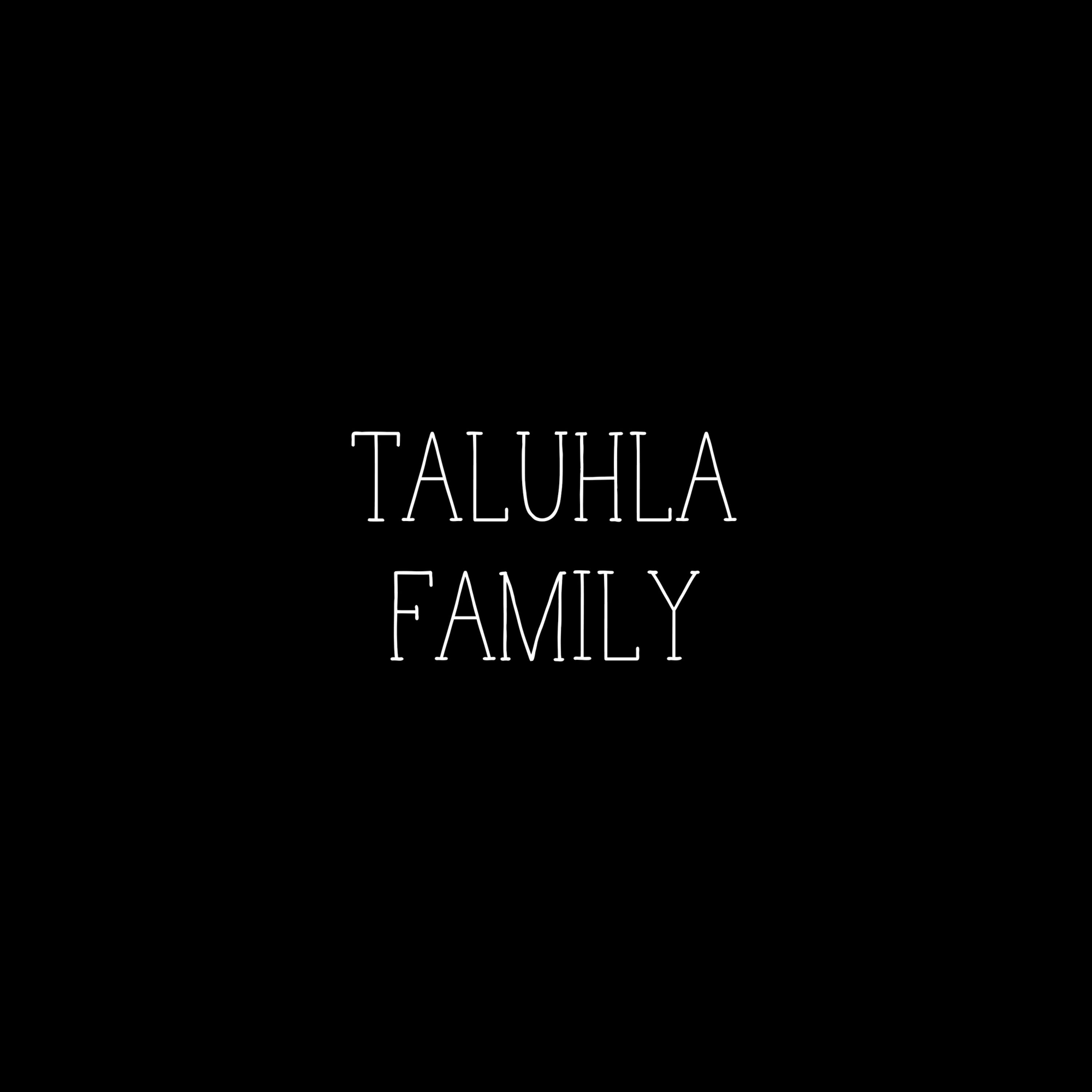
TALUHLA FONT FAMILY includes 3 Fonts and 1 Art Fonts/Vector Artwork (AI) File.
Fonts Include:
Taluhla Light Font
Taluhla Regular Font
Taluhla Bold Font
Taluhla Borders Font/Vector Art
Taluhla fonts are lovely handwritten fonts with Latin Pro Characters.
Taluhla Font Family